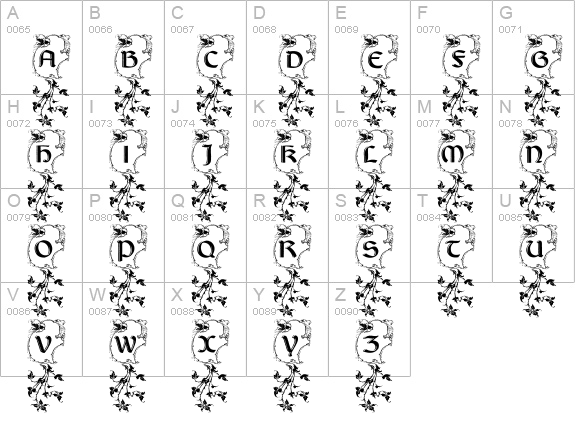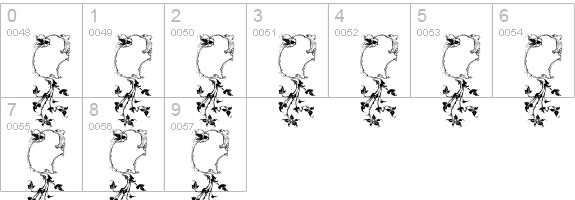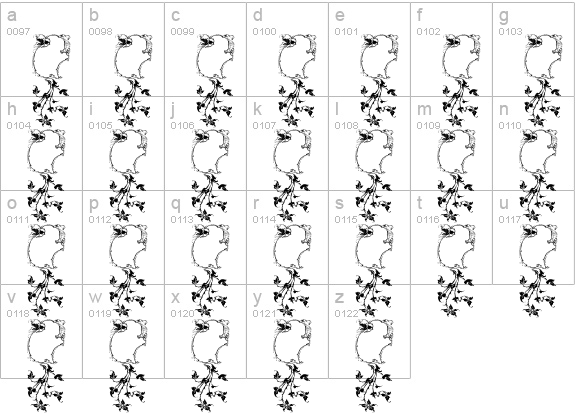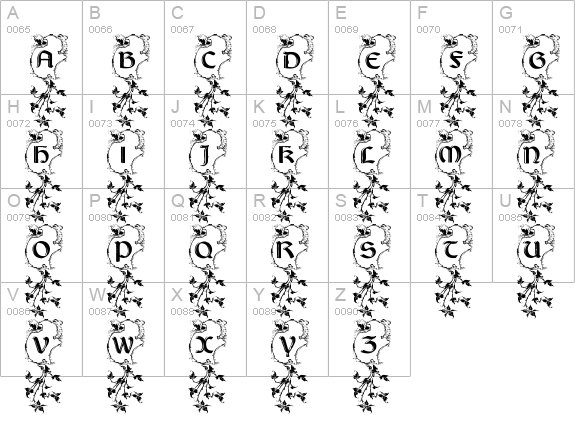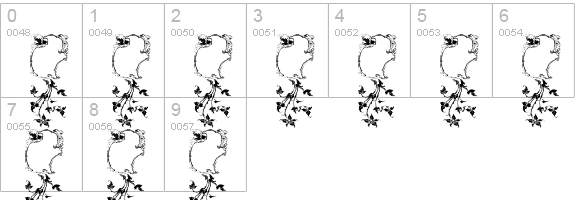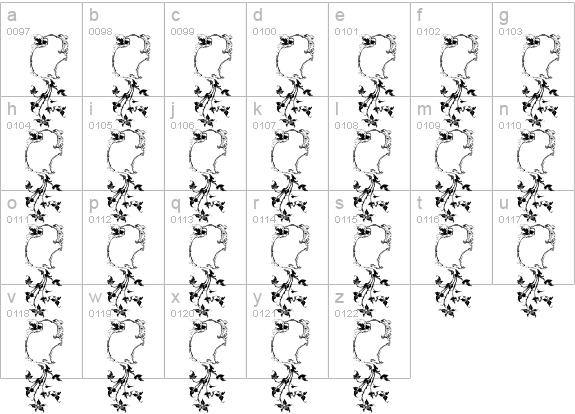
LisburneInitials Font Details
LisburneInitials font is a stunning display typeface that exudes elegance and sophistication. With its intricate details and ornate design, this font is perfect for adding a touch of luxury to your projects. The elaborate swirls and flourishes give LisburneInitials a timeless and classic look that is sure to make a statement. This font is freely available for download at FontsMarket.com, making it easy for you to add a touch of sophistication to your designs without breaking the bank. Whether you're working on invitations, branding, or any other project that requires a touch of elegance, LisburneInitials font is sure to impress. Download it today and elevate your designs to the next level.